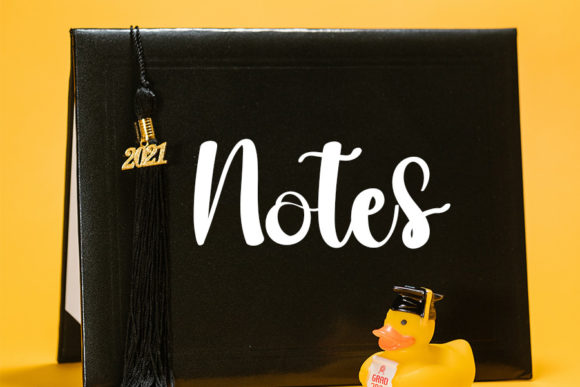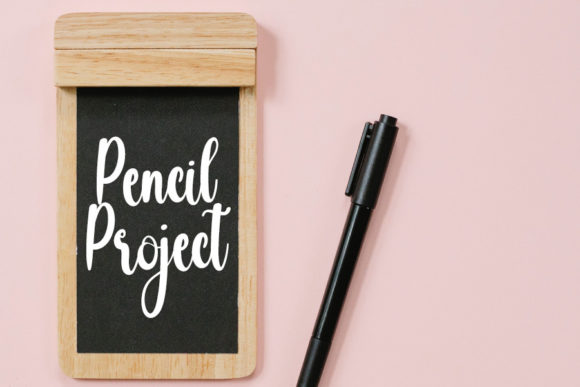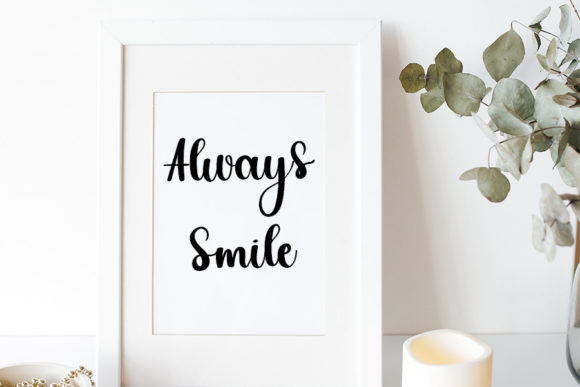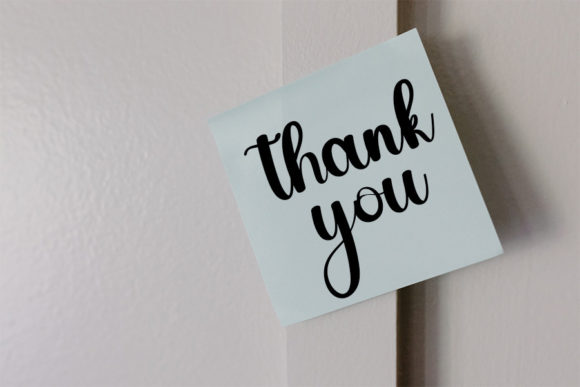
Dinamic Font
About Dinamic Font
“Dinamic” is a friendly handwritten font that has been meticulously designed to capture hearts as a true favorite among designers and creatives. Balancing classy calligraphic influences with a contemporary and fresh feel, this font brings a harmonious blend that adds warmth and character to various design projects.
The font’s calligraphic influences contribute to its enduring elegance, infusing a touch of class and sophistication into every character. Whether applied to invitations, branding materials, or product packaging, “Dinamic” effortlessly radiates a sense of timeless style.
While rooted in classical inspiration, “Dinamic” manages to maintain a friendly and approachable demeanor, making it versatile for a diverse range of design applications. It seamlessly fuses the grace of traditional calligraphy with a modern twist, ensuring its relevance and appeal across various contexts.
Thoughtful design considerations make “Dinamic” a flexible and reliable choice for projects demanding a high level of aesthetic appeal. Whether creating inviting logos, expressive stationery, or engaging branding, this font serves as a key element in enhancing the visual allure of your designs.
As you acquaint yourself with the friendly charm of “Dinamic,” you’ll discover that it goes beyond being merely a font; it becomes an essential companion in your creative journey. Its ability to effortlessly combine sophistication with approachability makes it a go-to option for those seeking to infuse warmth and style into their design projects.
In summary, “Dinamic” is a friendly handwritten font that skillfully melds classic calligraphic influences with a contemporary and fresh vibe. Embrace its enduring elegance and inviting demeanor to elevate your projects, whether you’re working on invitations, branding, or any creative endeavor. “Dinamic” is poised to become a trusted and cherished asset in your design toolkit.